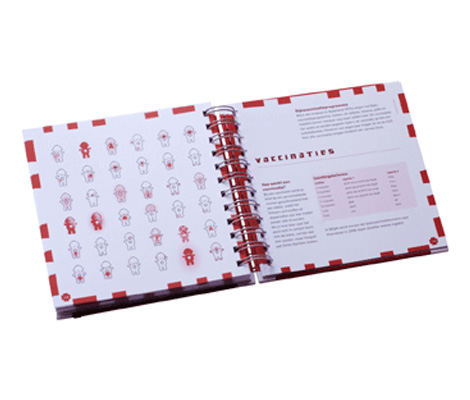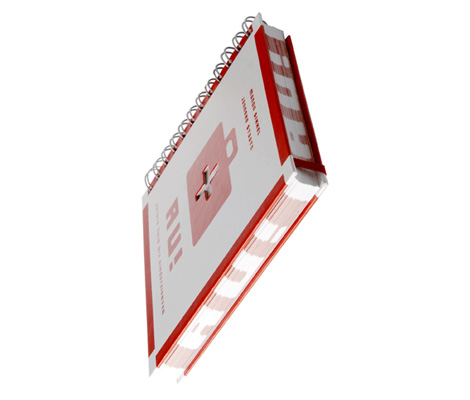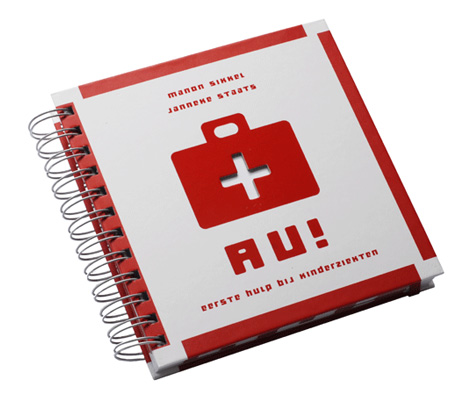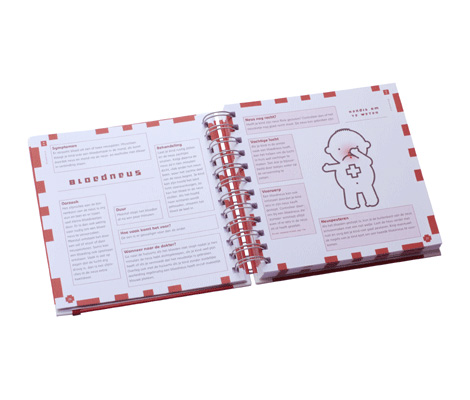
AU Typeface
For publisher Gottmer we designed a serie of 4 children books. Apart from the lay-out and illustrations we developed a special font for these books to give the serie a more unique look and feel.